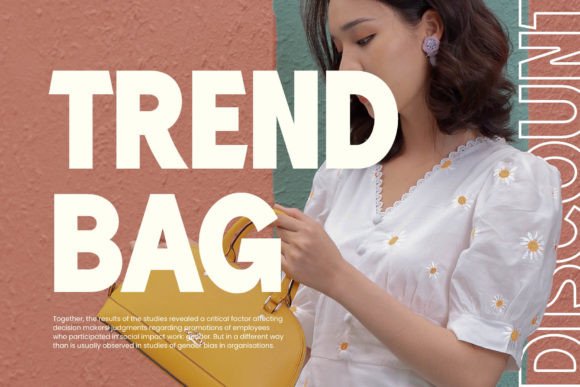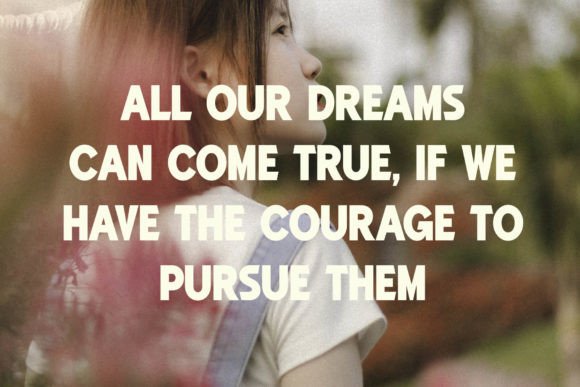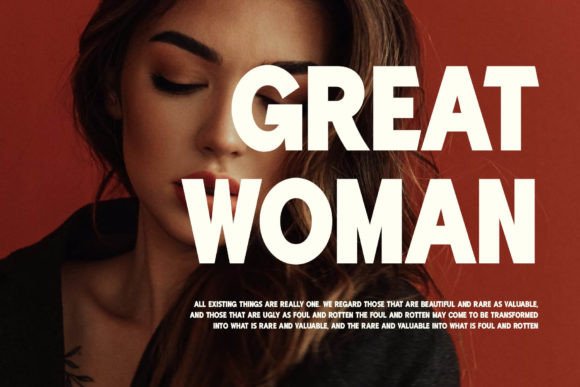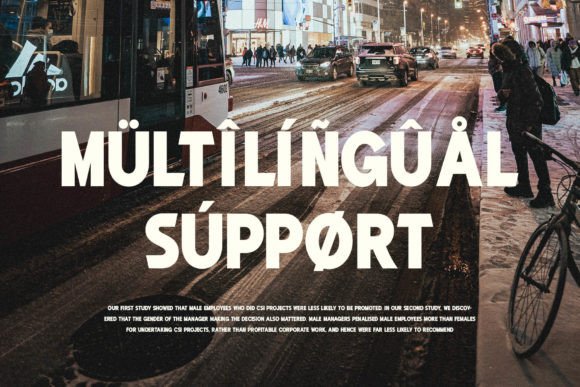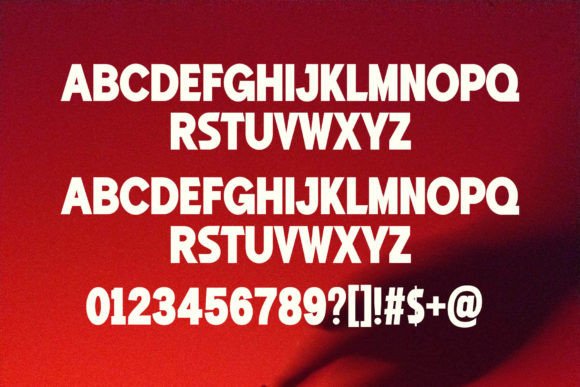
Unlocking the Power of “Doing Font”: Elevate Your Design Game with this Minimalist Marvel
In the realm of design, typography plays a pivotal role in conveying messages, evoking emotions, and creating lasting impressions. Among the myriad of fonts available, “Doing Font” has emerged as a popular choice among designers and crafters alike, thanks to its inspiration from the famous minimalist logo. This versatile font is perfect for a wide range of design applications, including templates, brochures, videos, advertising branding, logos, invitations, layout design, elegant crafting, beauty design, and more.
The Allure of Minimalism
Minimalism has been a dominant force in design for years, and for good reason. It’s about stripping away the unnecessary, focusing on the essential, and creating a clean, uncluttered aesthetic that communicates effectively. The famous minimalist logo that inspired “Doing Font” embodies these principles, making it an attractive choice for designers seeking to create elegant, sophisticated designs.
Key Characteristics of “Doing Font”
So, what makes “Doing Font” so special? Here are some of its key characteristics:
- Clean Lines: “Doing Font” features clean, crisp lines that exude simplicity and elegance.
- Simple Shapes: The font’s minimalist approach relies on basic shapes, making it highly legible and versatile.
- High Versatility: Whether you’re designing a logo, brochure, or video, “Doing Font” adapts seamlessly to various contexts.
- Elegant Feel: The font’s refined aesthetic lends an air of sophistication to any design, making it perfect for high-end branding and luxury products.
Design Applications for “Doing Font”
The possibilities are endless with “Doing Font”. Here are some design applications where this font truly shines:
- Templates: Create stunning templates for presentations, reports, or social media campaigns with “Doing Font” as the centerpiece.
- Brochures: Design eye-catching brochures that showcase your products or services with this elegant font.
- Videos: Use “Doing Font” in video intros, titles, or subtitles to add a professional touch.
- Advertising Branding: Develop cohesive brand identities with “Doing Font” as the core element.
- Logos: Craft memorable logos that make a lasting impression with this versatile font.
- Invitations: Design beautiful invitations for events, weddings, or parties with “Doing Font” adding a touch of sophistication.
- Layout Design: Create balanced, harmonious layouts with “Doing Font” as the guiding element.
- Elegant Crafting: Add a touch of luxury to your crafting projects, such as stationery, gift tags, or journal pages.
- Beauty Design: Use “Doing Font” in beauty-related designs, like product labels, packaging, or advertisements, to convey a sense of elegance and refinement.
Tips for Working with “Doing Font”
To get the most out of “Doing Font”, keep the following tips in mind:
- Pair with Complementary Fonts: Combine “Doing Font” with other fonts that complement its minimalist style, such as sans-serif or serif fonts.
- Experiment with Colors: Try out different color schemes to find the perfect match for your design and brand identity.
- Pay Attention to Spacing: Balance the font’s clean lines with adequate spacing to create a harmonious design.
“Doing Font” is a versatile, elegant, and highly versatile font that’s perfect for designers and crafters seeking to create stunning designs. Inspired by the famous minimalist logo, this font embodies the principles of simplicity, sophistication, and effective communication. With its wide range of design applications and easy-to-use characteristics, “Doing Font” is sure to elevate your design game and help you create memorable, impactful designs.